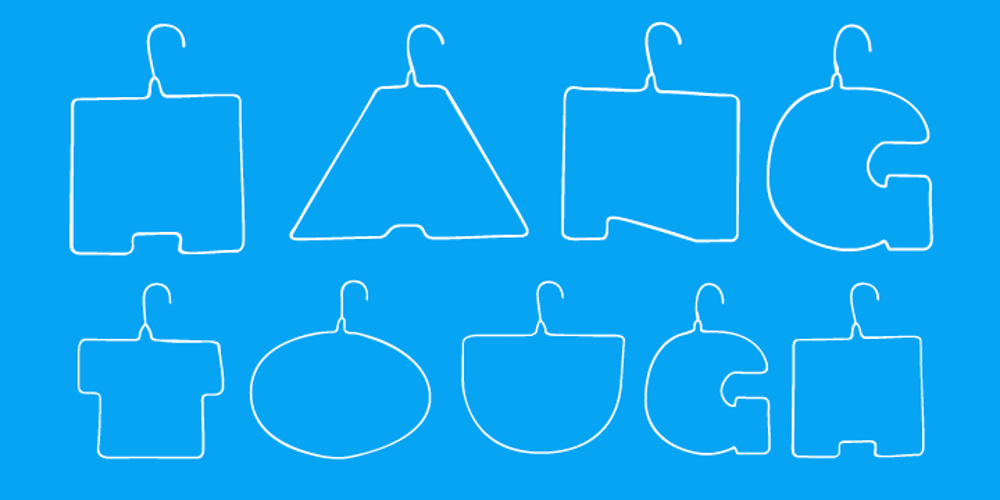
Hanger Font Family was designed by Ian Lynam and published by Wordshape. Hanger contains 2 styles and family package options. Hanger is a limited character display typeface. Based on the shapes of the alphabet if made out of a bent wire hanger, Hanger is suitable for apparel design, merchandising, and identity design projects.